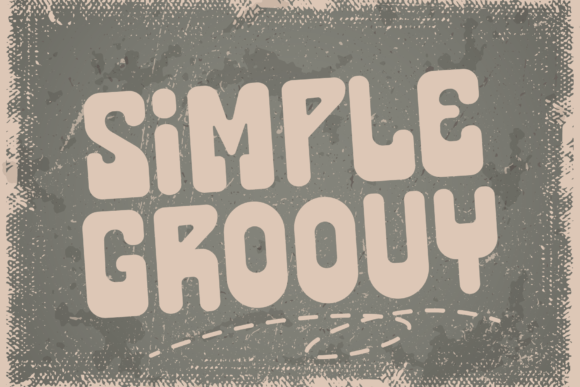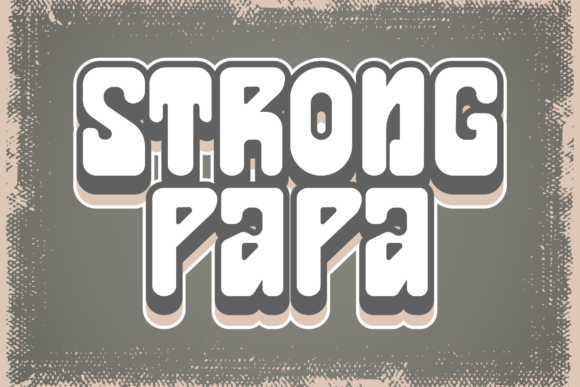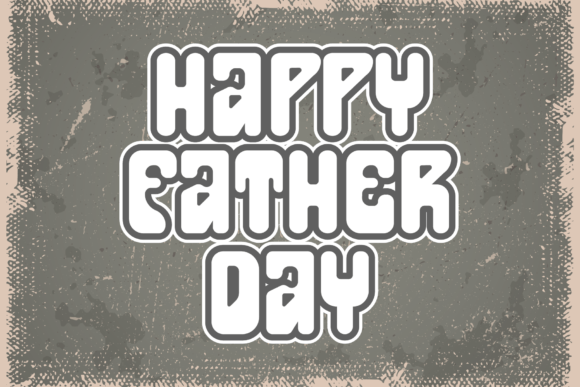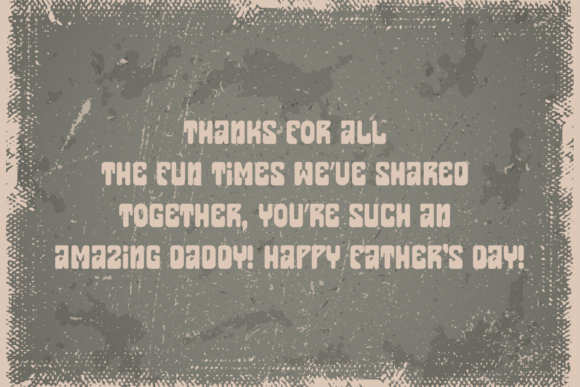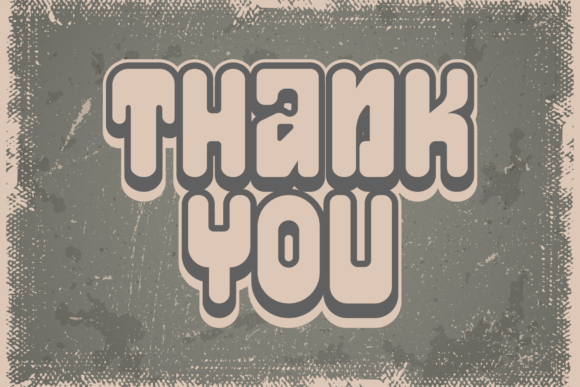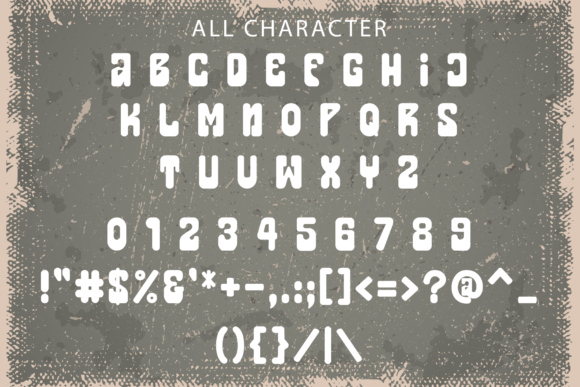
Introduction to Retro Father Font Font
Fonts play a crucial role in design, and the Retro Father Font font is a typeface that brings both character and versatility to any project. Whether you’re working on a branding project, a website, or a print design, the Retro Father Font font offers a unique style that can elevate your work.
Retro Father is a versatile, stylish, groovy, and playful retro display font perfect for a wide spectrum of applications such as greeting cards, headlines, and many more.
Add it to any of your creative projects, and it will give them a romantic and exquisite feel .
Key Features of Retro Father Font Font
Why Choose Retro Father Font Font?
The Retro Father Font font is more than just a typeface – it’s a design tool that helps you communicate your message with style and clarity. Its unique character set and versatile design make it suitable for a wide range of applications, from elegant invitations to bold headlines.
With its carefully crafted letterforms and balanced proportions, the Retro Father Font font ensures readability and visual appeal across all mediums.
What makes Retro Father Font font special?
The Retro Father Font font stands out with its unique design, exceptional readability, and versatility across various design applications.